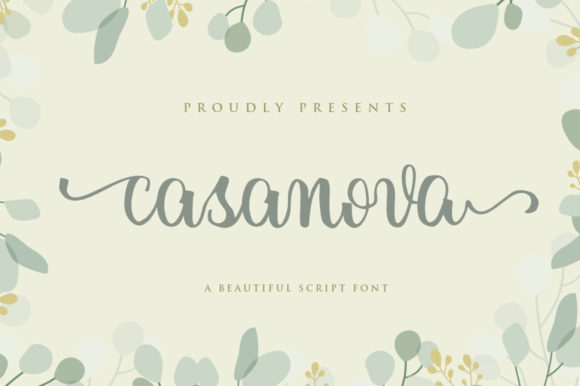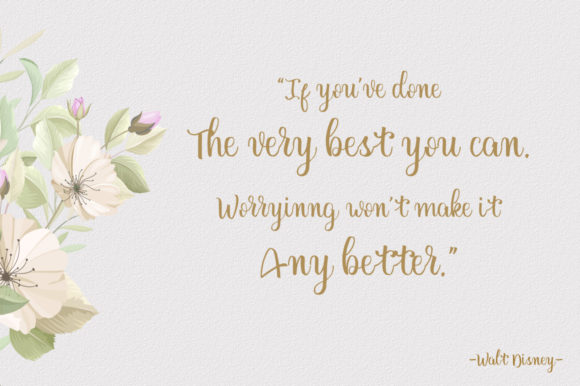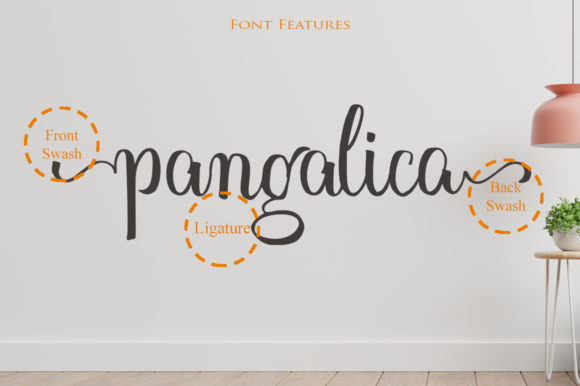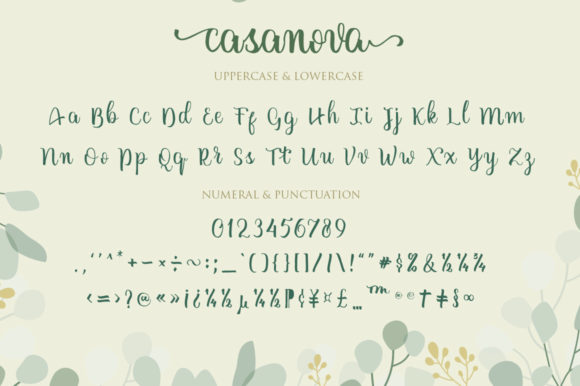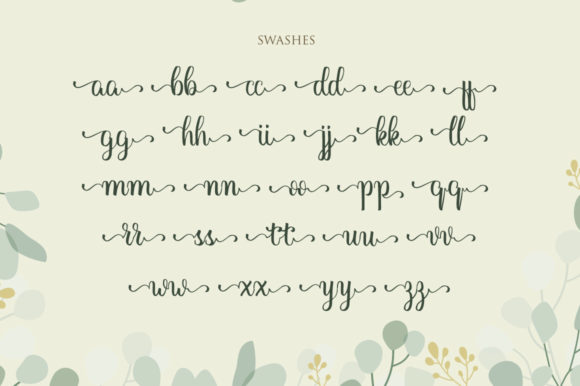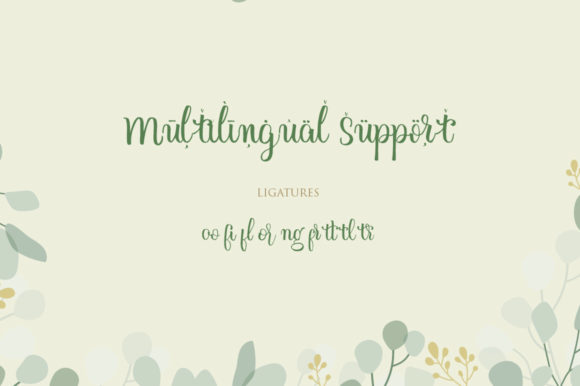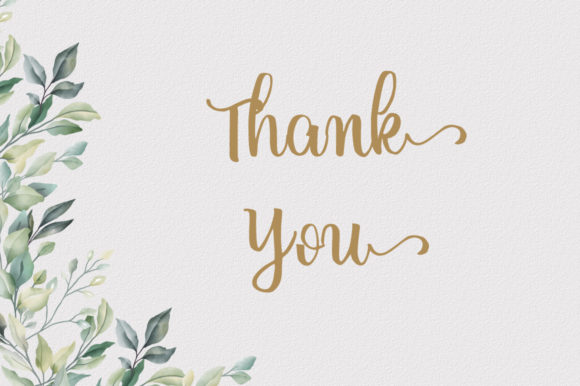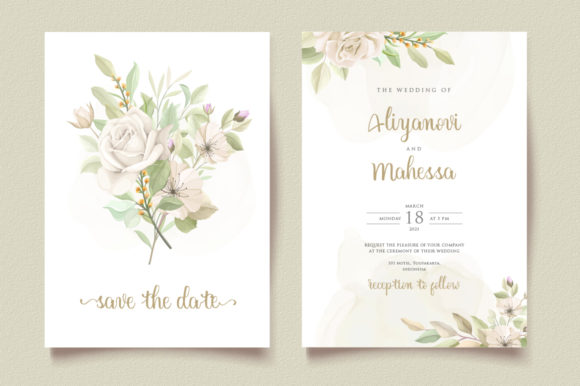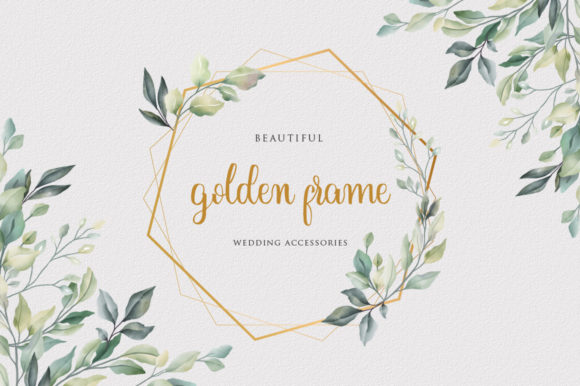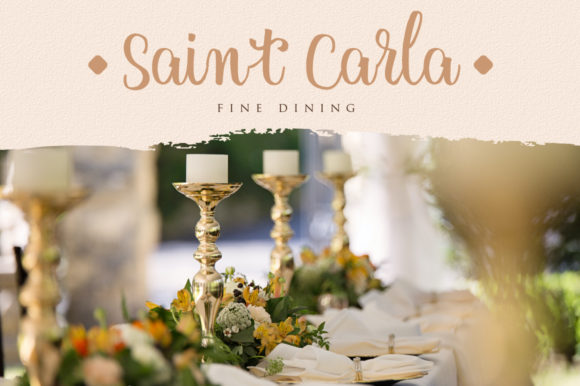
Casanova is a stylish and elegant script font that is designed to look outstanding in any context. Whether it’s used on busy backgrounds or as a standalone headline, Casanova’s sophisticated and versatile style will captivate your audience and enhance your design projects.
With its fluid and flowing letters, Casanova adds a touch of sophistication and charm to your designs. Its smooth curves and graceful lines give it a sense of elegance that can elevate any project, from branding and logos to invitations, posters, social media graphics, and more.
In branding and logos, Casanova can make your brand identity stand out with its stylish and memorable look. It exudes a sense of luxury and refinement, making it suitable for high-end businesses and fashion-oriented brands.
For invitations and stationery, Casanova brings an air of elegance and romance to your event announcements. Its stylish swashes and glyphs add a touch of personality, creating a unique and personalized touch for your designs.
In headlines and posters, Casanova’s standout appearance ensures that your message will be noticed and admired. Its versatility allows it to work seamlessly with various design styles, whether it’s used on busy or minimalistic backgrounds.
Casanova is PUA encoded, providing easy access to all of its glyphs and swashes. This feature allows you to customize your designs further and add extra decorative elements, making each project truly unique and captivating.
Overall, Casanova is a stylish script font that exudes elegance and charm. Its versatility and easy-to-access glyphs make it a valuable addition to any designer’s toolkit. Whether you’re working on branding, invitations, headlines, or any other design project, Casanova will help you create outstanding and captivating visuals that leave a lasting impression on your audience.